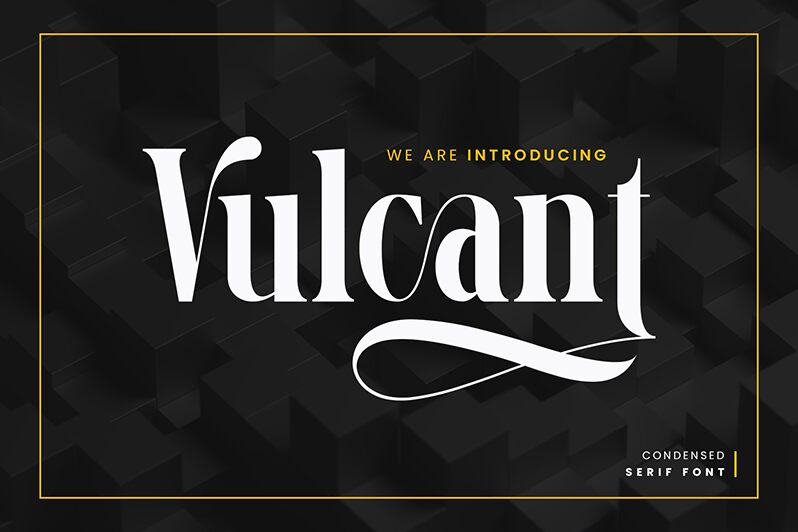
Vulcant font family by Slide Shoot Type is a free serif font family of 2 font styles with fine characteristics. Its inspiration appears to be some elements of famous typefaces put together seamlessly into a new form that results in something unheard of. The blend created is elegant and surreal and would suit any elite branding project that requires a unique font.